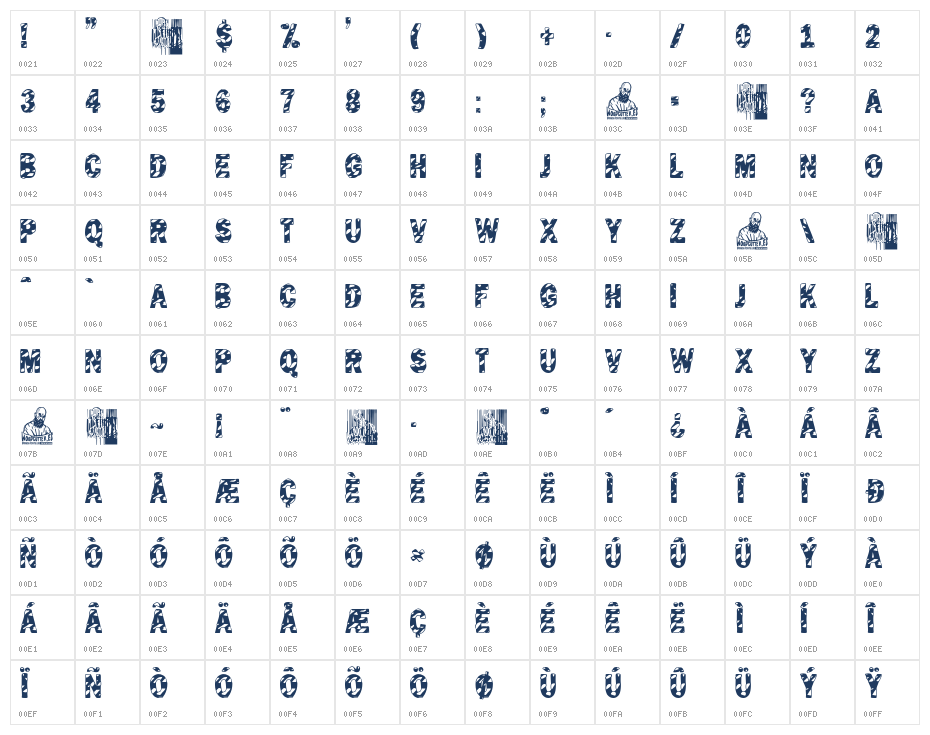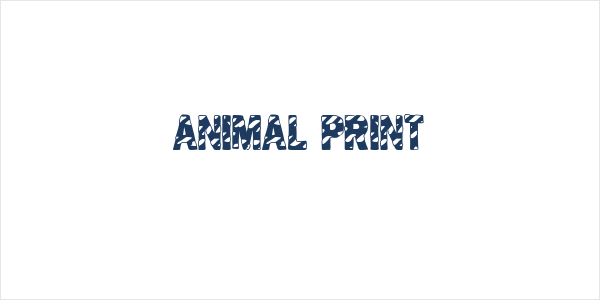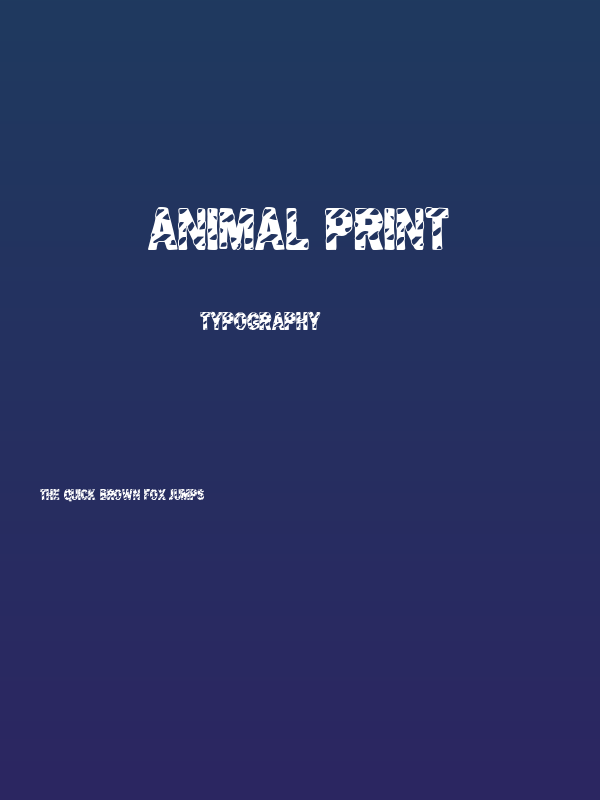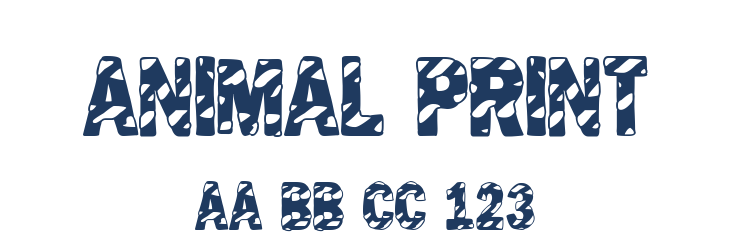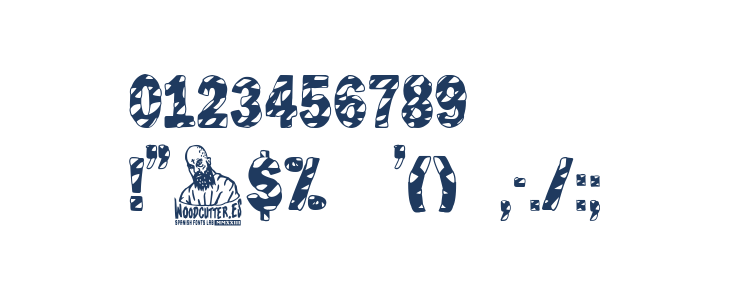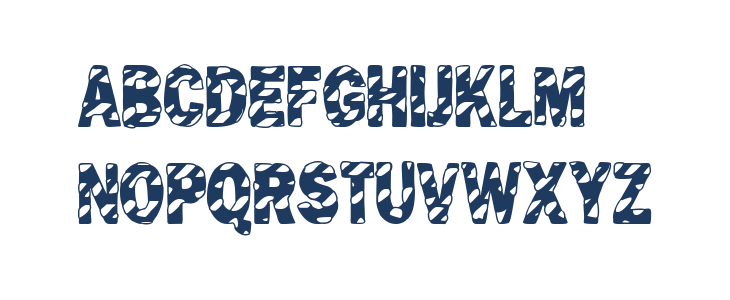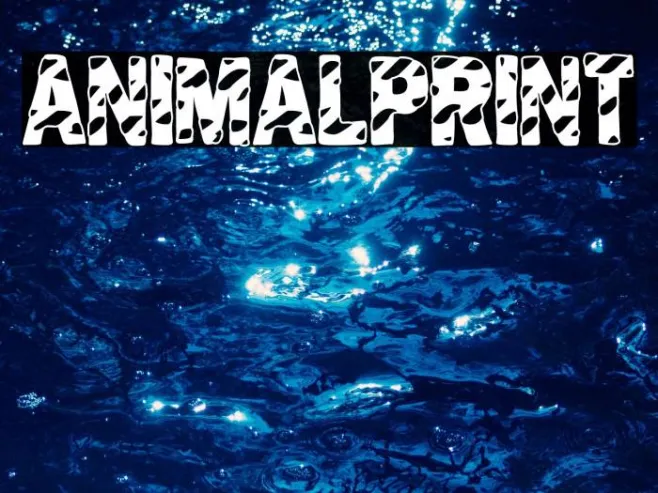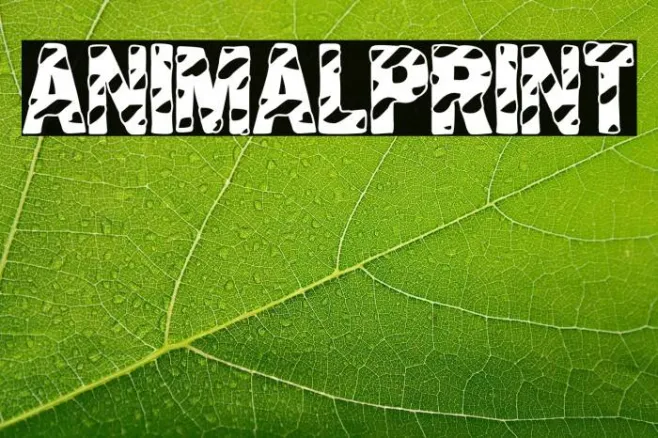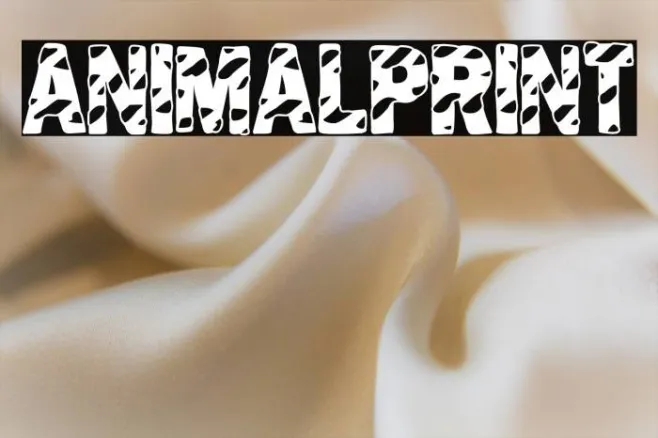
Animal Print Font
Animal Print Description
Decorative, playful font with a bold, patterned style featuring irregular, abstract shapes within each character.
| Overall Style | Playful, Artistic, Decorative |